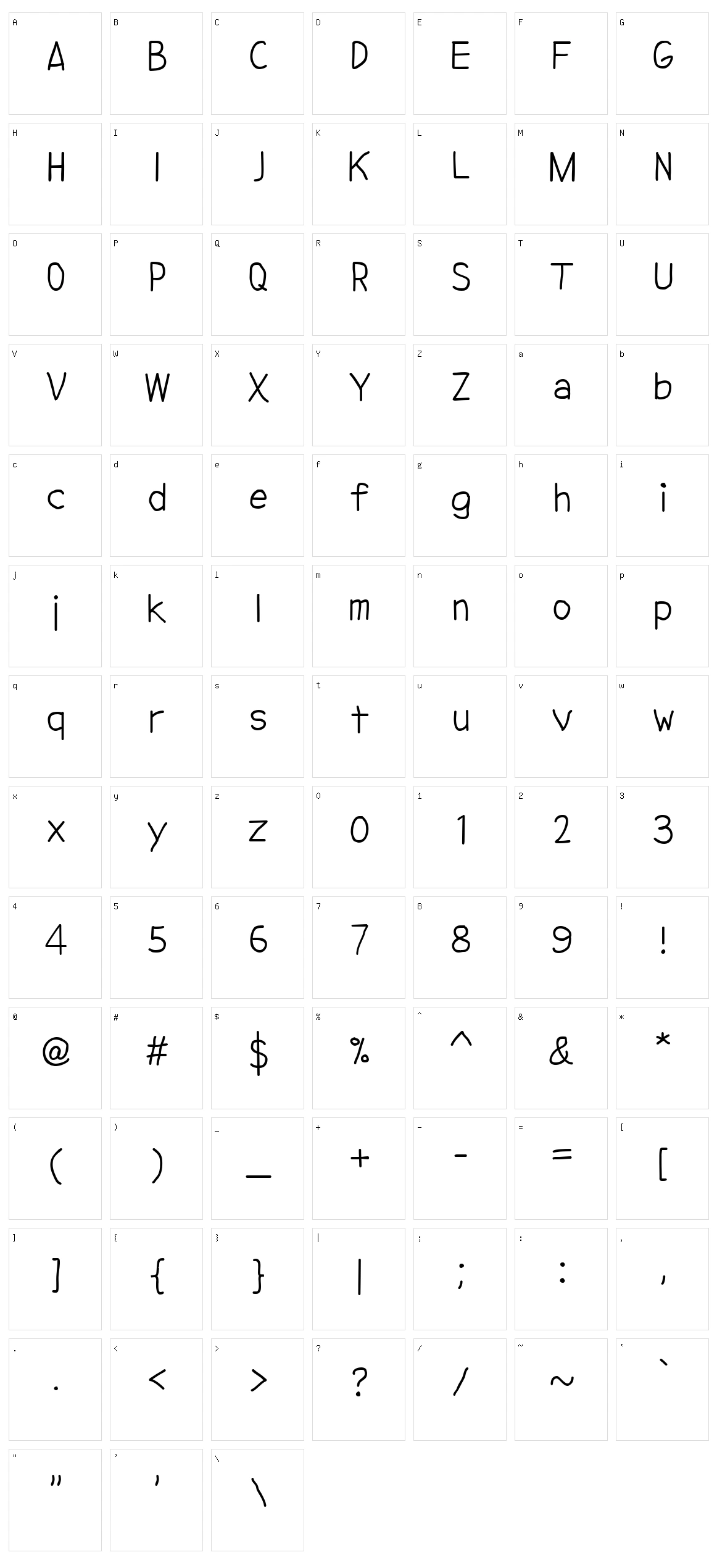
The free font NipCen's Print Unicode is carefully designed by Jayvee Enaguas, showcasing a thoughtful balance of creativity and usability and falls under the Script font style. When you download the ZIP file, it contains only 254.08 KB of font files, making it lightweight and quick to download. Please review the license details below to understand permitted usage and distribution rights. If license information is not available, we recommend using this font for personal projects only or contacting the author directly for commercial usage permissions.